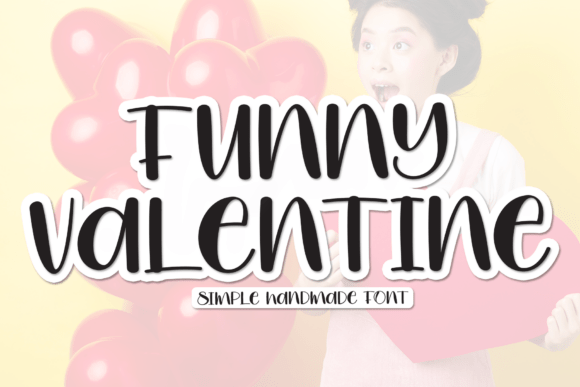
Adding a Touch of Handmade Charm to Your Designs
Who hasn’t scribbled a heartfelt message on a Valentine’s Day card or a child’s birthday gift, only to be met with a warm smile and a sense of genuine connection? It’s these unscripted moments of creativity that bring people together and make memories last a lifetime.
That’s exactly what the Funny Valentine Font aims to capture – the authentic, handmade feel of a personal touch. This charming typeface is perfect for adding a playful warmth to your projects, from Valentine’s Day cards to children’s party stationery. Its unique, irregular letterforms and bouncy rhythm make it an exceptional choice for designers looking to add a touch of sincerity and approachability to their work.
Funny Valentine Font Key Features
- Font Family: Funny Valentine is a sans-serif font family.
- Unique Characteristics: The font features a distinctive, hand-drawn feel with a touch of elegance and sophistication.
Designer Review: Funny Valentine Font
Overall, I was quite impressed with the quirky charm of Funny Valentine Font ✨. The font’s unique blend of elegance and playfulness makes it perfect for projects that need a touch of whimsy.
The font’s designer has done an excellent job of creating a sense of depth and texture, with subtle nuances that give it a hand-drawn feel ✨. The font’s character set is also well-rounded, making it suitable for a wide range of applications.
- Unique blend of elegance and playfulness ✨
- Subtle nuances give it a hand-drawn feel ✨
- Well-rounded character set
- May not be suitable for projects that require a more serious tone ⚠️
- Lack of support for certain languages ⚠️
- May require additional styling to achieve desired look
While Funny Valentine Font is not without its limitations, it’s a great choice for projects that need a touch of personality ✨. With some careful styling and consideration of its limitations, this font can be a real showstopper.
The Funny Valentine font is ideal for adding a touch of elegance and sophistication to your designs. It’s commonly used for:
– Wedding invitations
– Luxury brand logos
– High-end packaging designs
– Formal event invitations